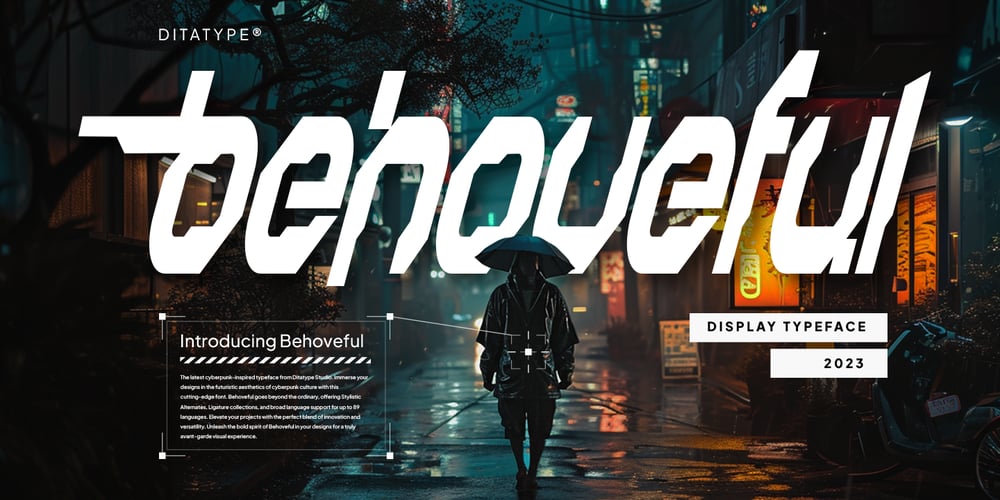
Behoveful Font Family was designed by Donis Miftahudin and published by Ditatype. Behoveful contains 1 styles and family package options. Behoveful is a captivating display font that effortlessly blends futuristic elements with a touch of script elegance. At first glance, Behoveful’s futuristic style is unmistakable, featuring sleek lines, sharp angles, and geometric shapes that evoke a sense of innovation and forward-thinking.On the other side, its subtle touch of script adds a hint of fluidity and personality to the otherwise futuristic design. These script-inspired details soften the sharp edges of the font, creating a captivating contrast between the sleek geometric forms and the organic flow of the script elements. This fusion of styles gives Behoveful a unique and dynamic appearance that is both eye-catching and versatile.The uneven outline of Behoveful adds an element of visual interest and depth, further enhancing its futuristic allure. This irregularity in the outline creates a sense of movement and energy, making each character feel alive and dynamic. Enjoy the features here.Features: Ligatures Stylistic Sets Multilingual Supports PUA Encoded Numerals and Punctuations Behoveful fits in headlines, logos, posters, flyers, technology branding, sci-fi book covers, futuristic UI/UX design, editorial layouts, and many more designs. Find out more ways to use this font by taking a look at the font preview.Thanks for purchasing our fonts. Hopefully, you have a great time using our font. Feel free to contact us anytime for further information or when you have trouble with the font. Thanks a lot and happy designing.